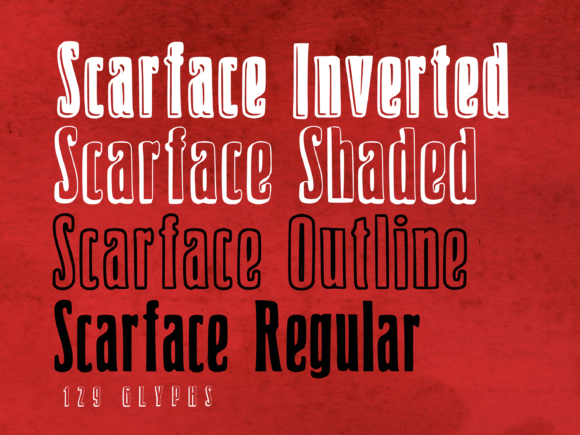
Scarface Font Download Display Fonts: Looking for a font with bold character, cinematic vibes, and a loud visual presence? The Scarface Font might be exactly what you need. Inspired by the iconic lettering style seen in the 1983 classic film Scarface, this font is powerful, eye-catching, and packed with drama. It’s the perfect choice for projects that demand attention — from logos to movie posters, music album covers to apparel branding.
What is the Scarface Font?
The Scarface font is a bold, thick, display-style typeface that gets its name from the legendary gangster film “Scarface.” While it’s not the exact type used in the film poster (which used a font similar to “Serpentine”), this font takes inspiration from that same visual spirit — cinematic, daring, and unapologetically dramatic.
This font is designed to capture attention instantly. Whether you’re branding a streetwear line or creating visuals for digital platforms like Instagram, this font speaks with authority and style.
Features of the Scarface Font
Let’s look at what makes this typeface stand out from the crowd:
🔹 Bold & Heavy Letterforms
Scarface is unapologetically bold. It uses thick strokes and clean angles to create high visual impact. Perfect for titles, headers, and any element that needs emphasis.
🔹 Display Font Purpose
It’s a display font, meaning it’s best used for larger text applications like headlines, logos, or signage—not body copy.
🔹 Versatile Style
Despite its bold look, the Scarface font remains flexible. It can adapt to a wide range of projects, from corporate identities to album artwork, and from fashion brands to film and game titles.
🔹 Modern with Retro Influences
Scarface captures that rare balance — it feels modern and fresh, yet has a hint of retro drama, especially appealing to pop culture fans and nostalgic creatives.
Where to Use the Scarface Font
This font thrives in creative and visual-heavy projects. It’s made to be noticed and remembered. Here’s where it truly shines:
🎥 Movie Titles & Film Posters
Looking to replicate the iconic Scarface movie vibe? This font is perfect for bold, cinematic presentations.
🎮 Game Titles & UI Elements
Great for video game covers, splash screens, and promotional graphics in the action, crime, or noir genres.
👕 Apparel Branding
Fashion designers and streetwear brands love bold fonts. Scarface works amazingly on T-shirts, caps, hoodie designs, and more.
📱 YouTube & Instagram Thumbnails
Need something that pops on screen? This font grabs the viewer’s eye immediately on social media.
🎶 Music Album Covers & Band Logos
Whether you’re creating visuals for hip-hop, trap, rock, or electronic music, this font adds that hardcore edge.
📚 Book Covers & Comic Titles
Ideal for thriller novels, comic books, or graphic novels — anything with dramatic storytelling benefits from Scarface’s style.
Font Pairing Tips
Scarface is a dominant display font, so pairing it wisely with a simple secondary font helps maintain balance in your design.
Here are a few pairing suggestions:
| Font to Pair | Why It Works |
|---|---|
| Roboto | Modern, minimal sans-serif for body text |
| Open Sans | Neutral and clean, lets Scarface shine |
| Lato | Rounded sans-serif with excellent readability |
| Playfair Display | Elegant contrast for a high-end look |
| Montserrat | Geometric sans with stylish tone |
Similar Fonts to Scarface
Final Thoughts
If you’re looking for a bold and unforgettable display font, Scarface Font delivers impact with style. Whether you’re branding your own apparel line, designing a YouTube banner, or crafting a thrilling book cover, this font speaks with cinematic authority.